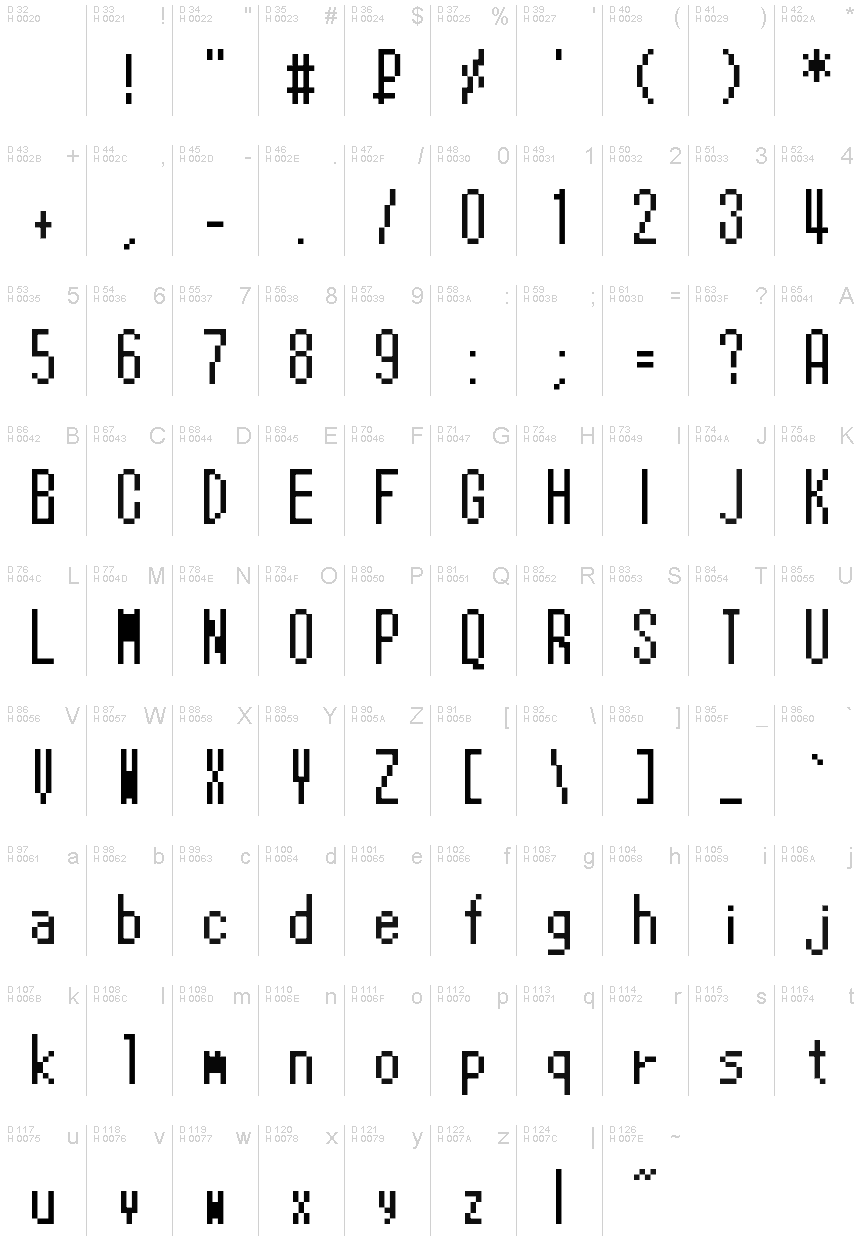
Pokemon X and Y Regular
"Pokemon X and Y" is a striking pixelated font that immediately evokes the retro charm of the beloved Pokemon video game series. Crafted by TheLouster115, this condensed bitmap font boasts a bold, eye-catching aesthetic, with custom-made Cyrillic and Latin glyphs that seamlessly blend the classic pixel-art style with modern flair.
The custom pokedollar symbol, a playful nod to the game's in-world currency, adds a whimsical touch, making this font an ideal choice for gaming-inspired designs, from user interface elements to merchandise and branding. Its condensed width and pixelated finish lend it a unique, retro-futuristic appeal that would shine in a wide range of applications, from video game interfaces to nostalgic-themed websites and print materials.